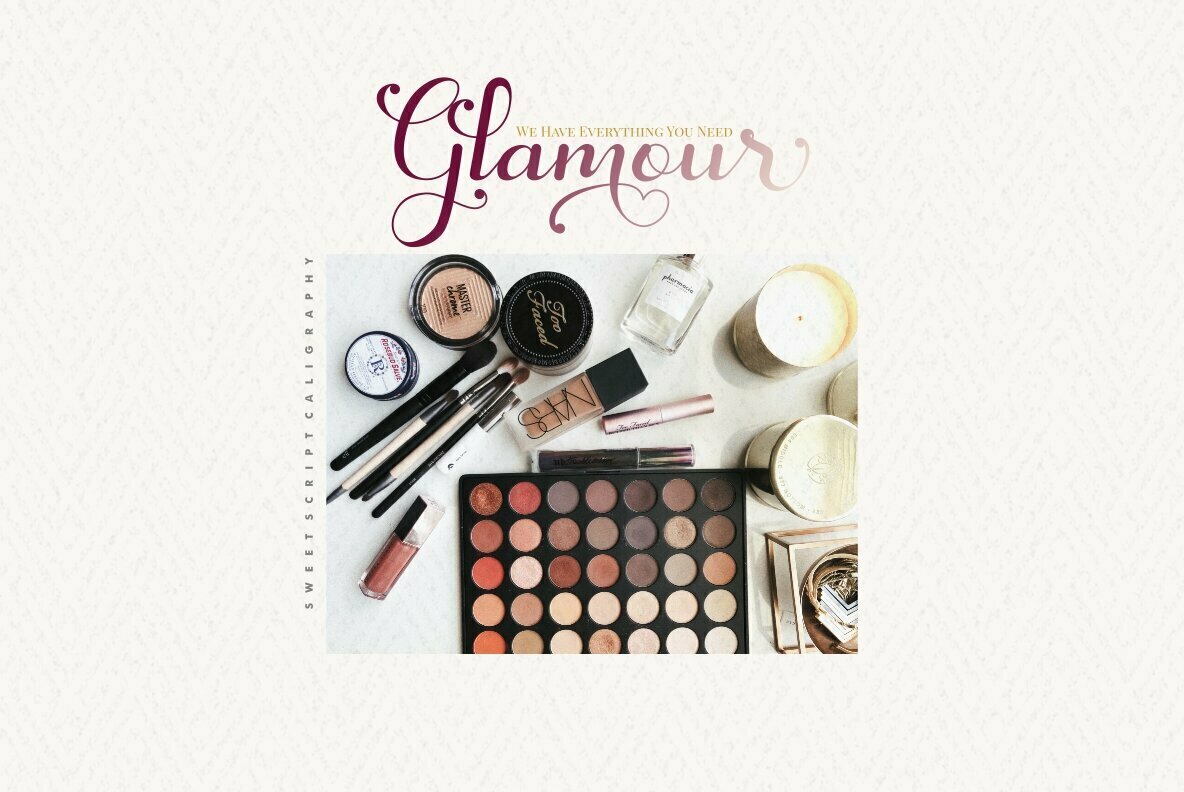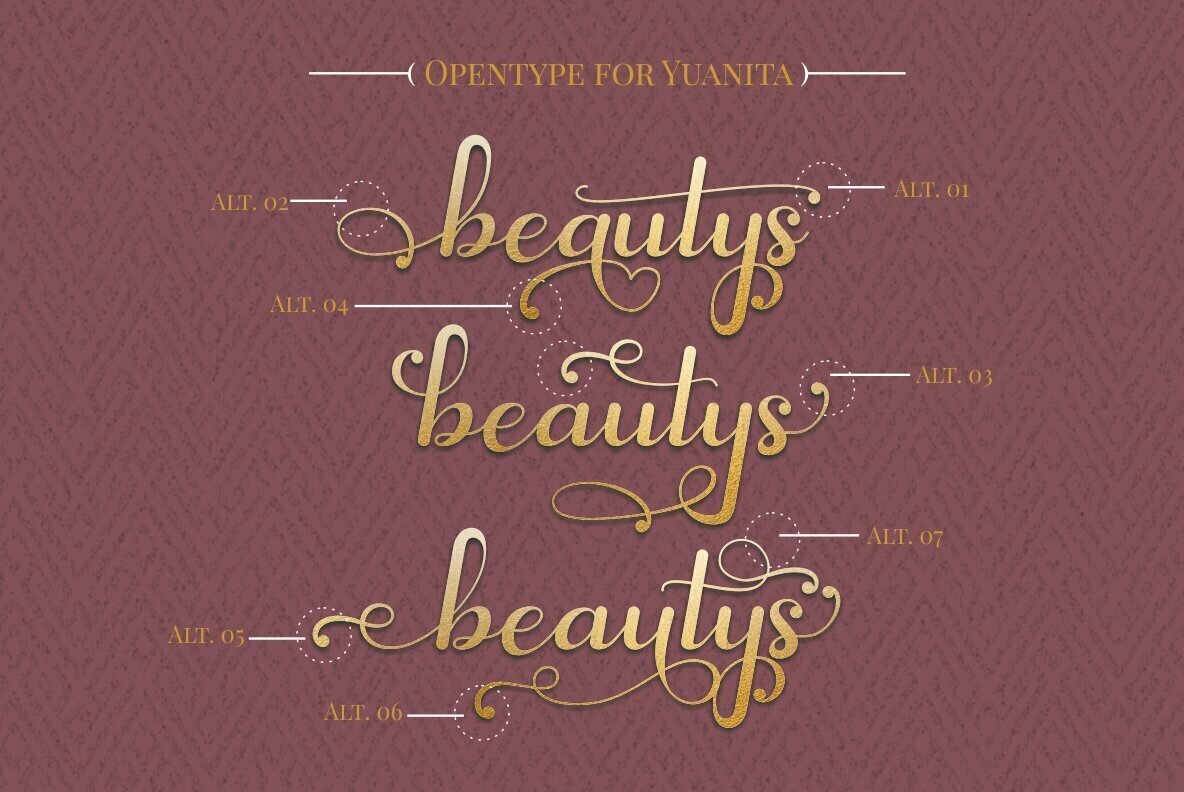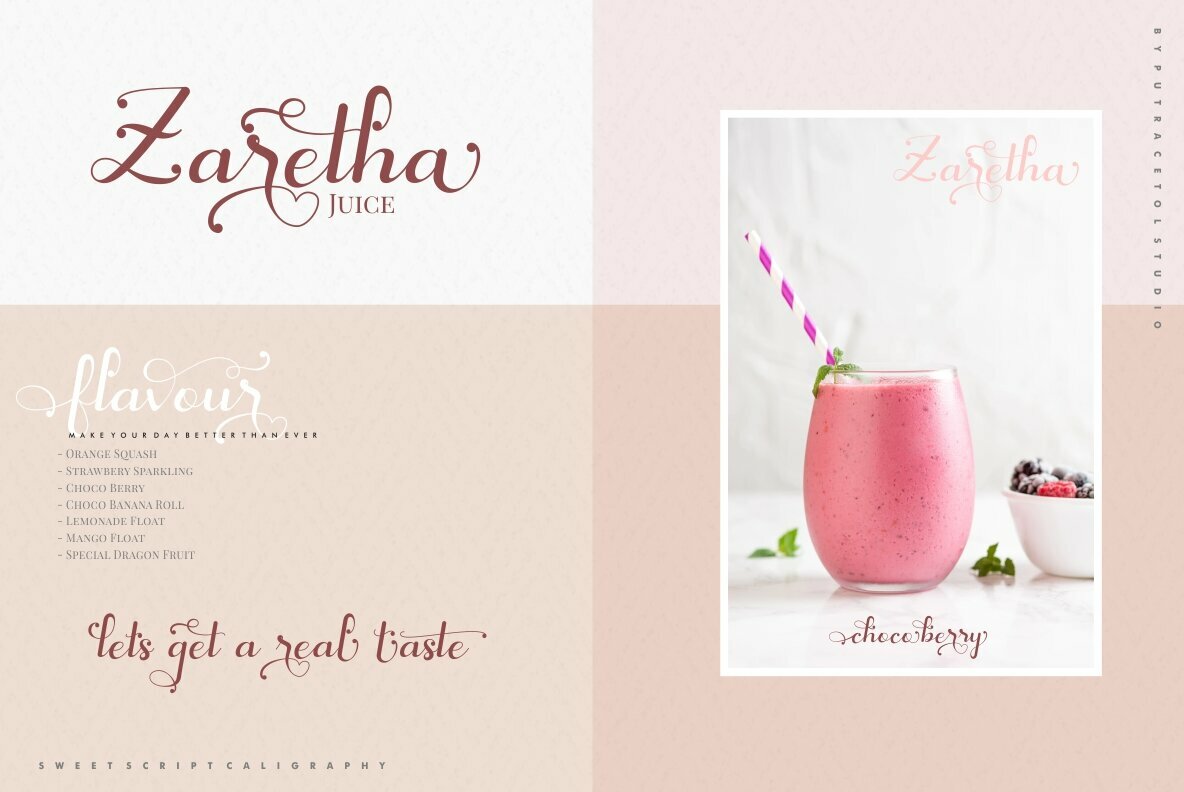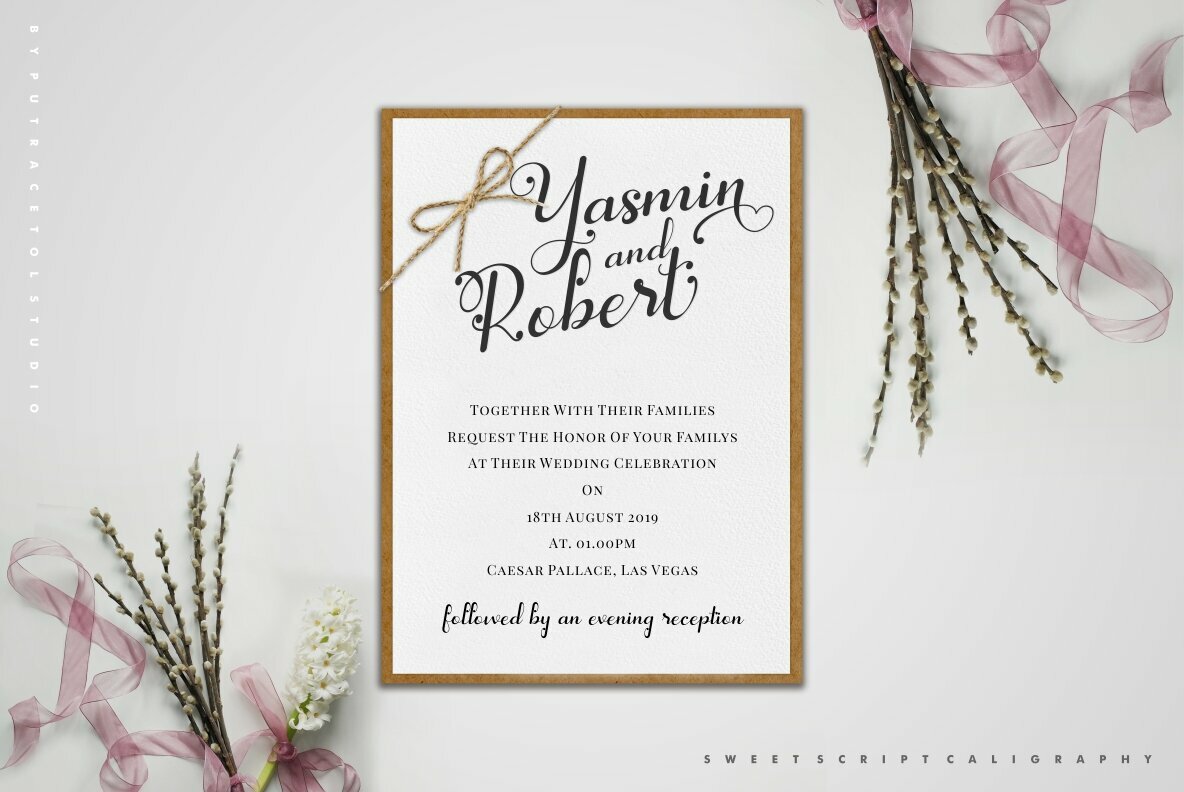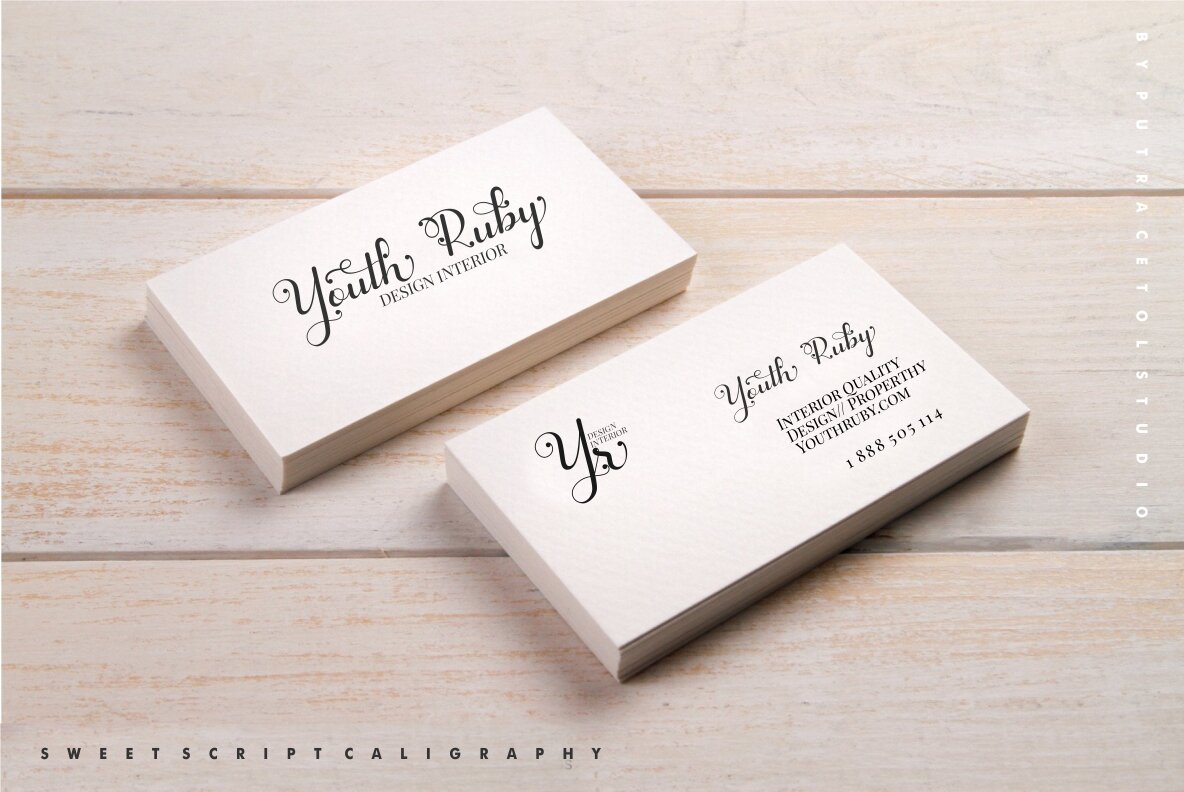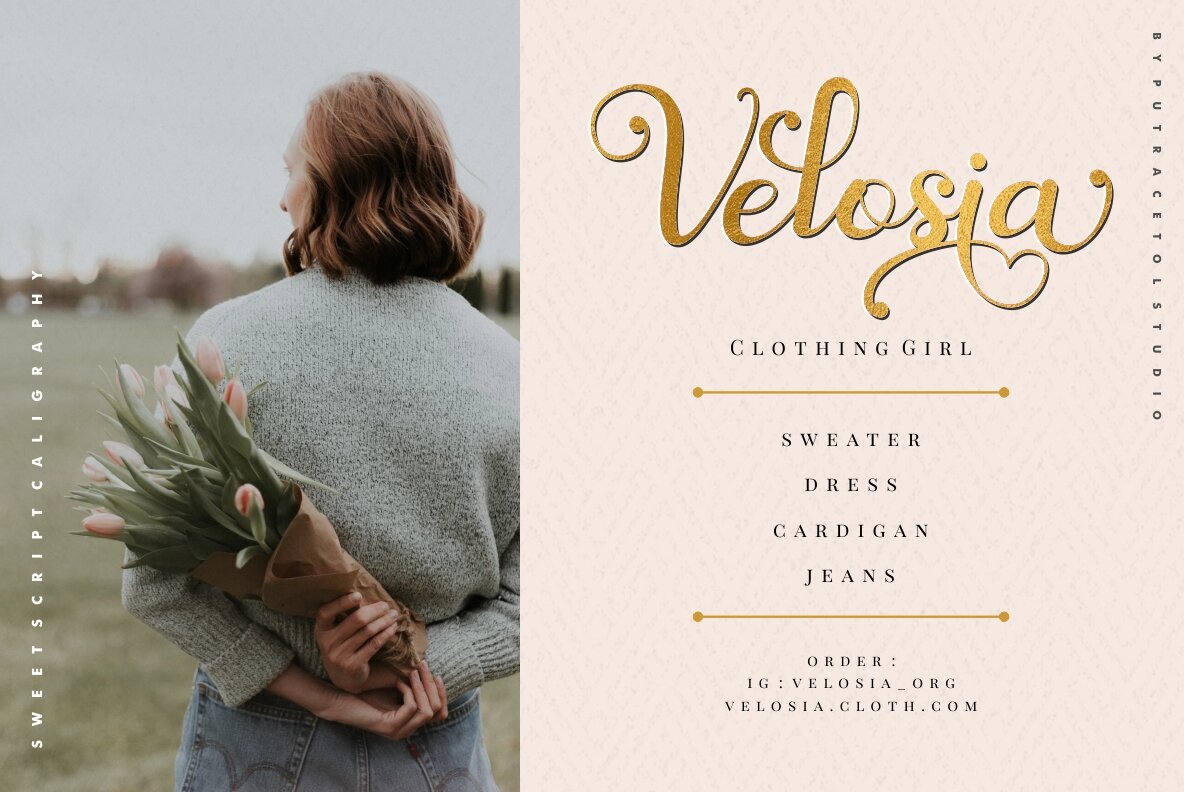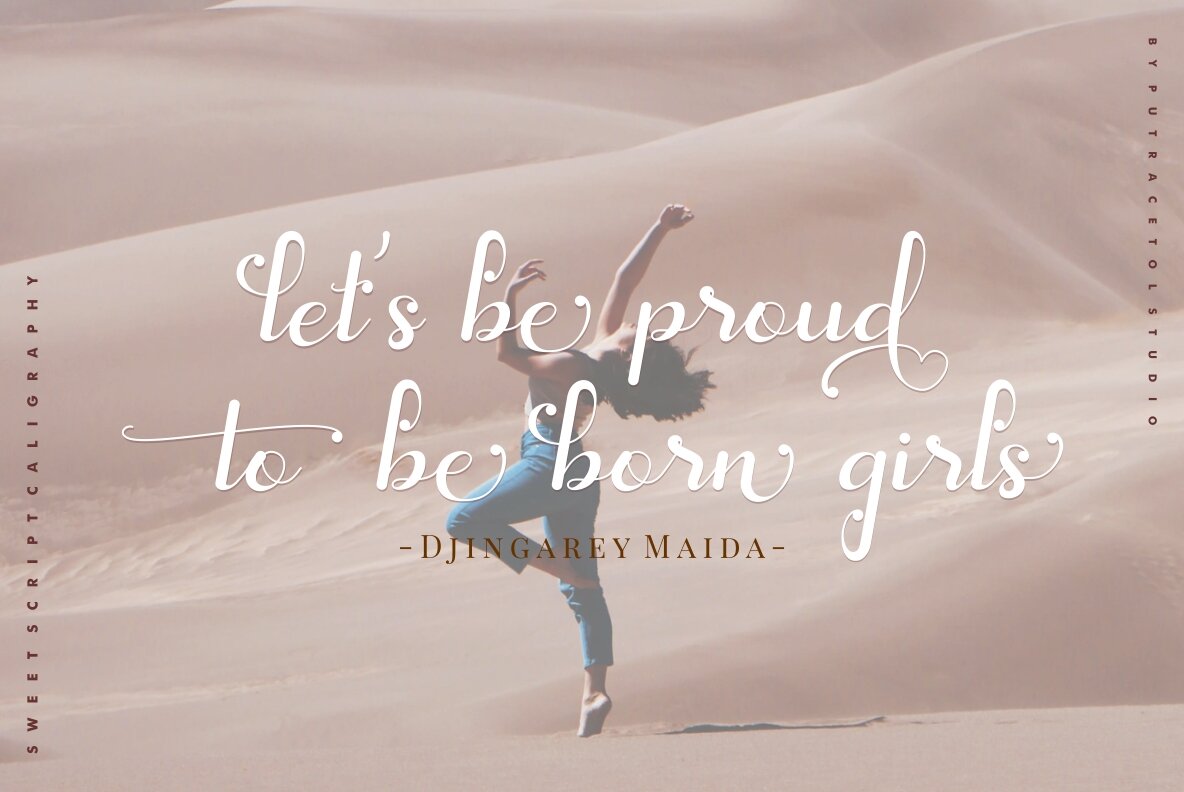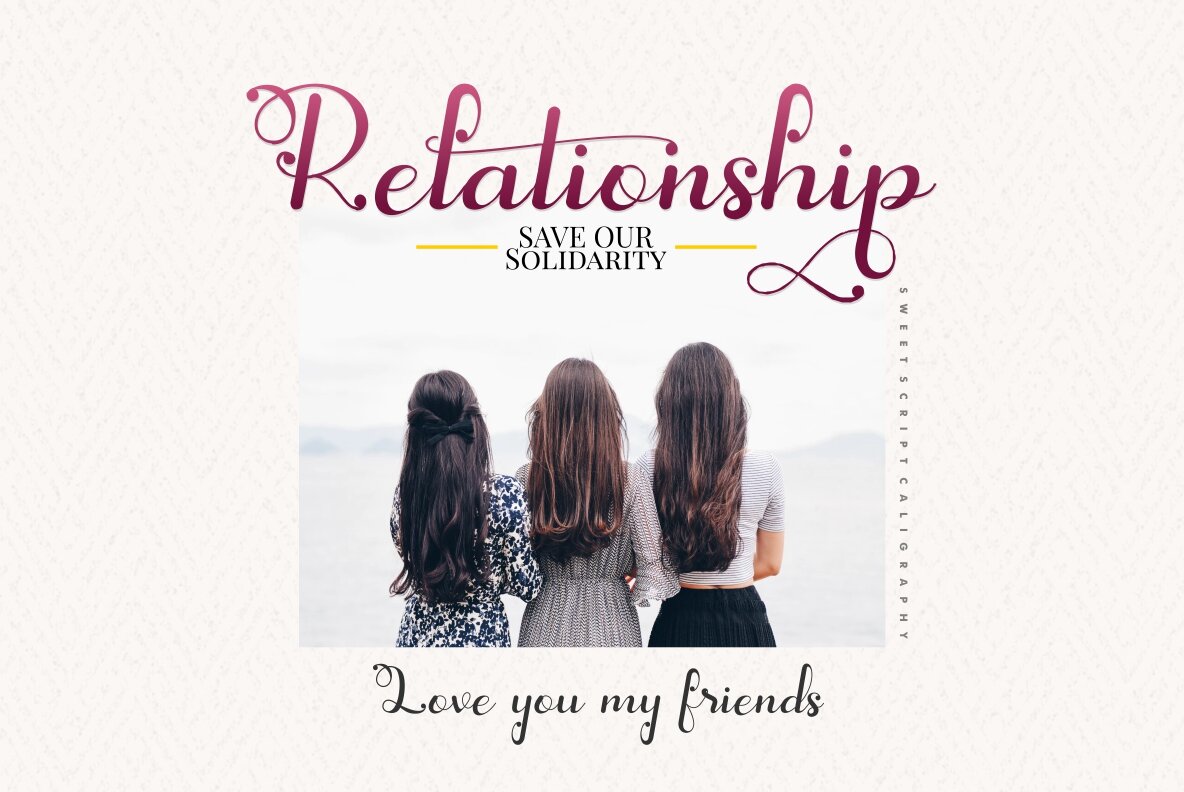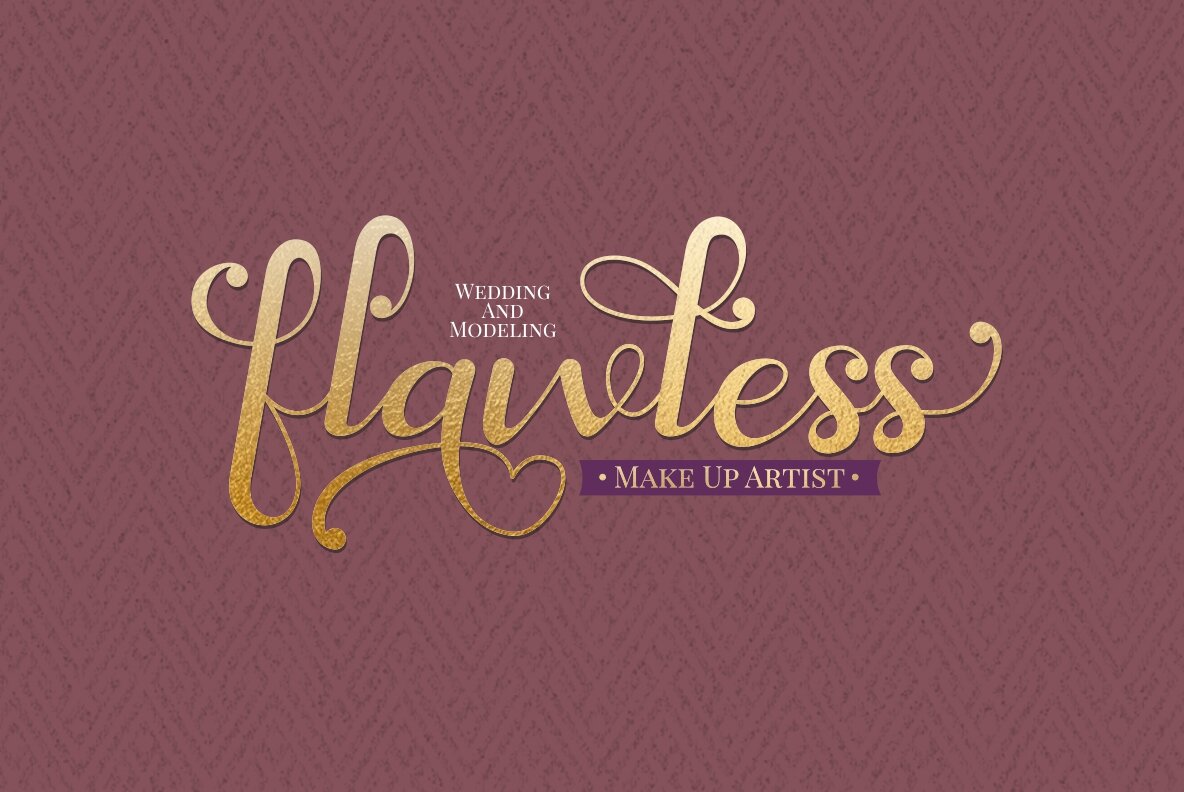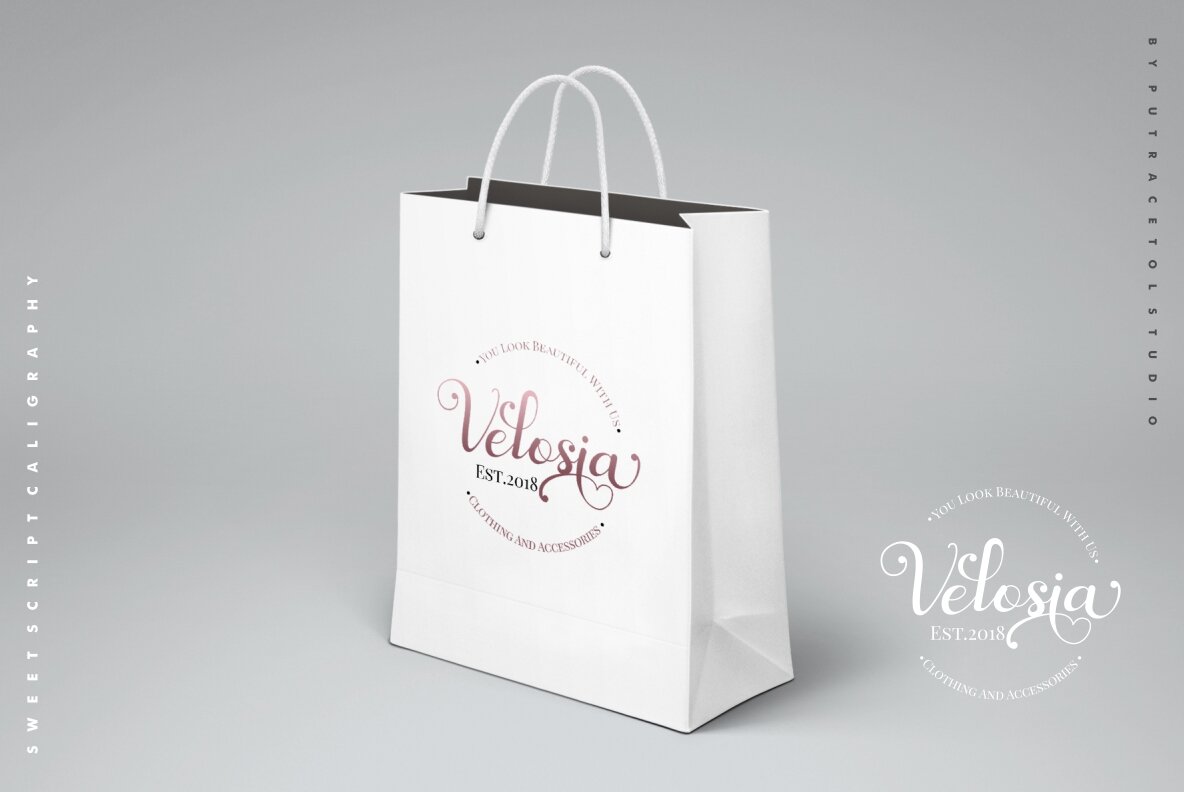
Yuanita Font
Yuanita
Yuanita is a contemporary calligraphy font crafted in a handmade style. Embodying femininity with an elegant flair, it introduces a charming touch of modernity. This font is ideal for a variety of creative projects—from wedding events to branding and elegant stationery. Yuanita enhances projects like greeting cards, logos, posters, and more. The font includes OpenType features with numerous alternates, allowing for versatile and personalized letterforms. Additionally, it offers multilanguage support, expanding its utility across diverse linguistic contexts. To fully utilize its features, access to programs supporting OpenType, such as Adobe Illustrator, Photoshop, Indesign, or Corel Draw, is recommended.Yuanita: Elegant Modern Calligraphy Font